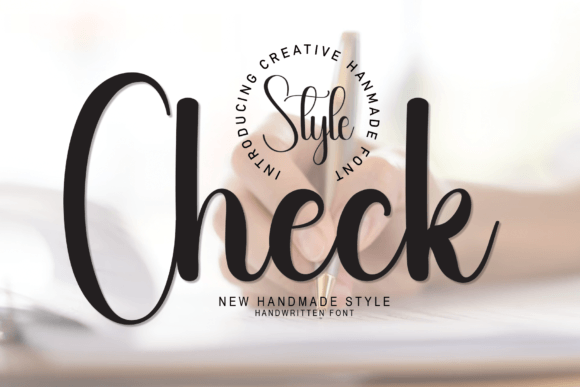
Journey into the world of Check, a font that dances on the page with its graceful curves and playful personality. This captivating script font, lovingly crafted by Roronoa Zoro.S.P.D., exudes a sense of effortless style that is sure to leave a lasting impression.
With its innate charm, Check effortlessly elevates any design project, adding a touch of elegance and sophistication. Its versatility knows no bounds, making it the perfect choice for crafting logos, branding materials, wedding invitations, social media graphics, and more.
Imagine your fashion website adorned with the graceful strokes of Check. Its elegant curves and dynamic personality will create a shopping experience that is both visually appealing and inviting. Customers will be drawn to the allure of your products, captivated by the beauty of the typography that complements them.
Check is more than just a font; it's an art form that breathes life into your creative endeavors. Its ability to effortlessly blend with various design styles makes it a versatile asset in any designer's toolkit. Whether you're creating delicate wedding invitations, eye-catching logos, or trendy social media graphics, Check will effortlessly elevate your designs and leave a lasting impression on your audience.
So, dive into the world of Check, where creativity flourishes, and elegance abounds. Unleash your imagination and let this remarkable font guide you to new heights of design excellence. Experience the magic of Check today and see how it transforms your creative projects into masterpieces.